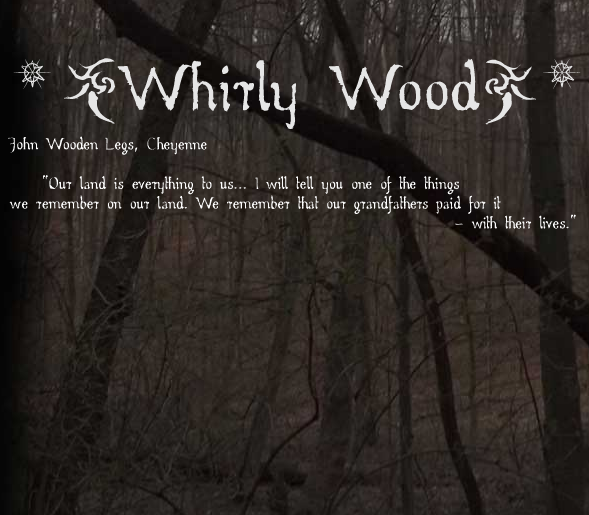
Whirly Wood is my first hand drawn designed font. The name comes from J.D. Salinger’s novel „Perfect day for a bananafish”. Commercial use requires donation. Feel free to drop me a line in case of questions or feedback. That would also help me in my design work, and would be greatly appreciated! |